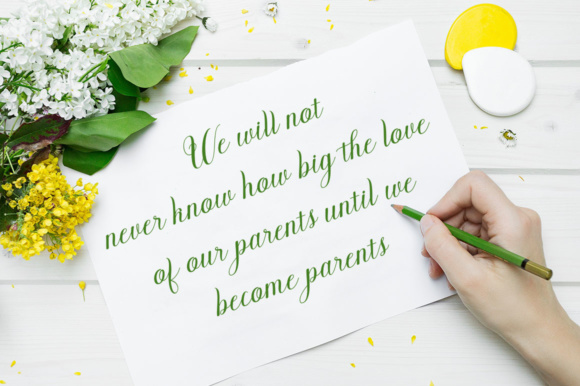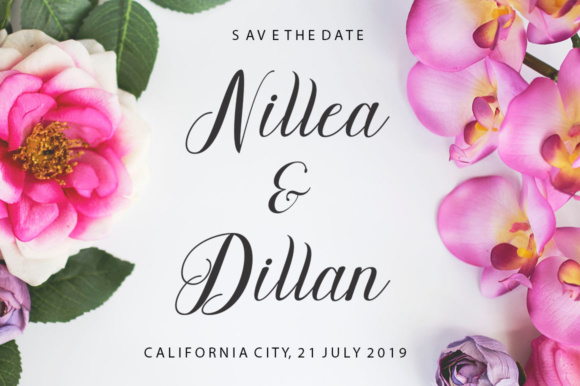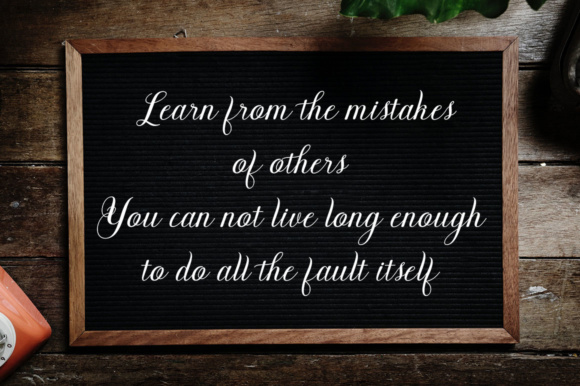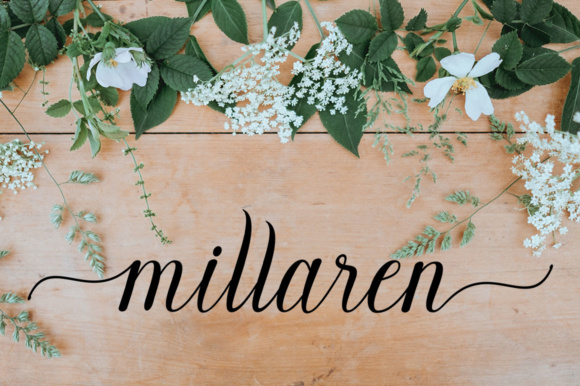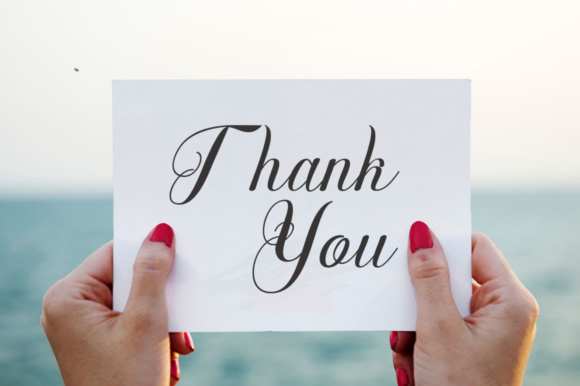
Discover the Secret to Adding Elegance to Your Designs
You know that feeling when you’re brainstorming ideas for a new project and everything just clicks? The font, the color palette, the layout – it all comes together in a beautiful, cohesive way. For me, it’s moments like these that remind me why I love being a designer. And one font that’s consistently helped me achieve that “aha” moment is the Dayling Script Font.
| 📌 Product Name | Dayling Script Font |
This sweet hand lettered font is more than just a pretty face – it’s a versatile tool that can add a touch of elegance and class to any design. With its casual, dynamic feel and dancing baseline, the Dayling Script Font is perfect for creating eye-catching headlines, stylish logos, or even elegant invitations. And the best part? It’s surprisingly easy to use, making it a valuable addition to any designer’s toolkit.
Key Features of Dayling Script Font
- Unique Characteristics: The Dayling Script Font features a beautiful, handwritten feel with subtle flourishes and connections between letters, making it perfect for creative and artistic projects.
Dayling Script Font Review
First impressions count, and Dayling Script Font ✨ definitely makes a statement. This elegant script font is perfect for those looking to add a touch of sophistication and whimsy to their designs. Its flowing lines and gentle curves create a beautiful, hand-written feel that’s sure to captivate audiences.
- ✨ Elegant and refined, Dayling Script Font is perfect for branding, invitations, and other high-end designs.
- ✨ Its versatility makes it suitable for a wide range of industries, from fashion to food and beverage.
- ✨ The font’s subtle irregularities give it a unique, human touch that sets it apart from more generic script fonts.
That being said, there are some limitations to consider:
- ⚠️ Dayling Script Font may not be the best choice for body text, as its flowing lines can be difficult to read in large quantities.
- ⚠️ The font’s elegance can also make it feel somewhat over-the-top for more casual designs.
Overall, I’d say Dayling Script Font is a great addition to any designer’s toolkit. While it may have some limitations, its unique charm and versatility make it a great choice for those looking to add a touch of elegance to their designs.
Tips for Getting the Most Out of the Dayling Script Font
Use the Dayling Script Font to add a touch of elegance and sophistication to your designs.
Pair it with bold or sans-serif fonts to create contrast and visual interest.
Experiment with different font sizes, colors, and styles to achieve the desired effect.
Use the Dayling Script Font for:
Business cards and marketing materials
Quotes and inspirational graphics
Blog posts and articles with a personal touch
Alternatives to Dayling Script Font
Oswald Script
Oswald Script is a modern script font that is ideal for use in headings and titles. It has a strong, elegant feel that is perfect for creating a sense of sophistication and luxury. Unlike Dayling Script Font, Oswald Script has a more geometric feel, making it a great choice for modern designs.
Great Vibes is a stylish script font that is perfect for use in creative and artistic projects. It has a unique, handwritten feel that is sure to add a touch of personality to any design. Great Vibes is a great alternative to Dayling Script Font for projects that require a more whimsical and carefree feel.
Carolyna Pro is a elegant script font that is perfect for use in high-end designs. It has a luxurious feel that is sure to add a touch of sophistication to any project. Unlike Dayling Script Font, Carolyna Pro has a more refined and polished feel, making it a great choice for corporate and business designs.